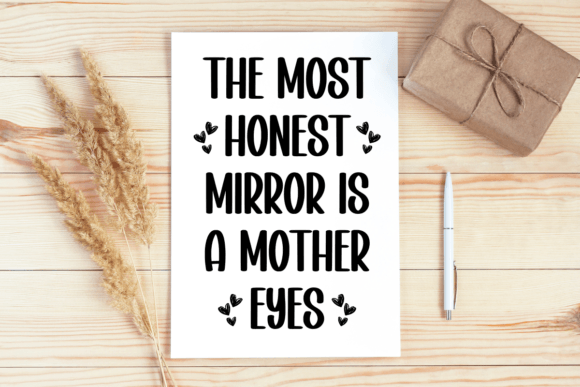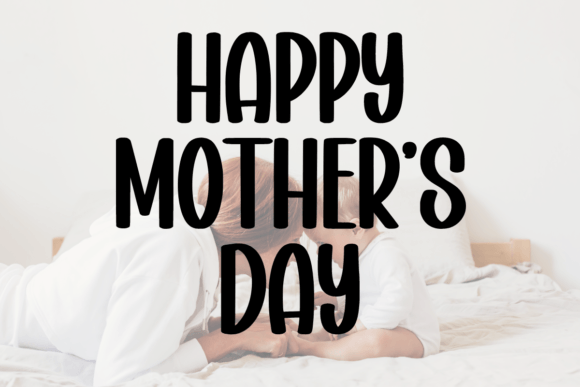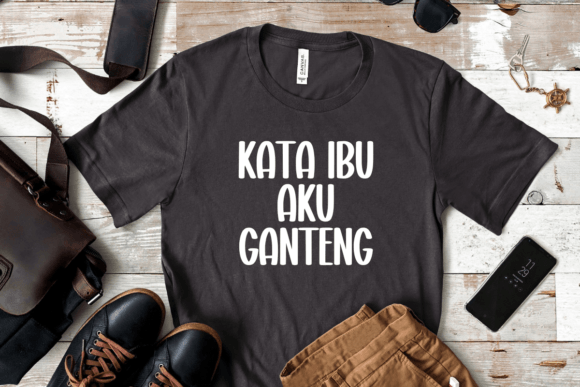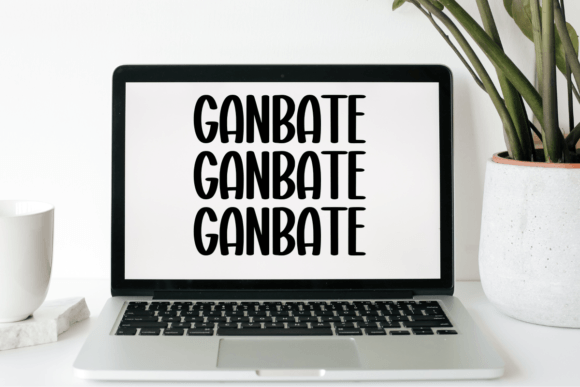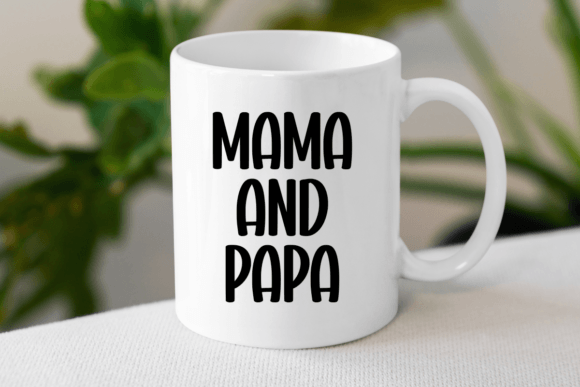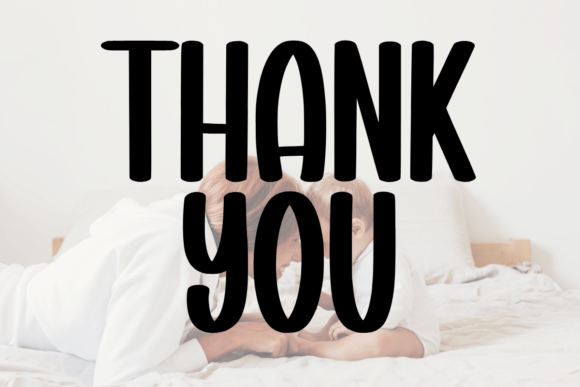
Introduction to Mama Loves Font Font
Fonts play a crucial role in design, and the Mama Loves Font font is a typeface that brings both character and versatility to any project. Whether you’re working on a branding project, a website, or a print design, the Mama Loves Font font offers a unique style that can elevate your work.
Mama Loves a modern and friendly Display font, is a delightful blend of whimsy and clarity.
Its playful curves and rounded edges bring a sense of warmth to any design Perfect for childrenβs books, invitations, and branding.
Key Features of Mama Loves Font Font
Why Choose Mama Loves Font Font?
The Mama Loves Font font is more than just a typeface β it’s a design tool that helps you communicate your message with style and clarity. Its unique character set and versatile design make it suitable for a wide range of applications, from elegant invitations to bold headlines.
With its carefully crafted letterforms and balanced proportions, the Mama Loves Font font ensures readability and visual appeal across all mediums.
What makes Mama Loves Font font special?
The Mama Loves Font font stands out with its unique design, exceptional readability, and versatility across various design applications.